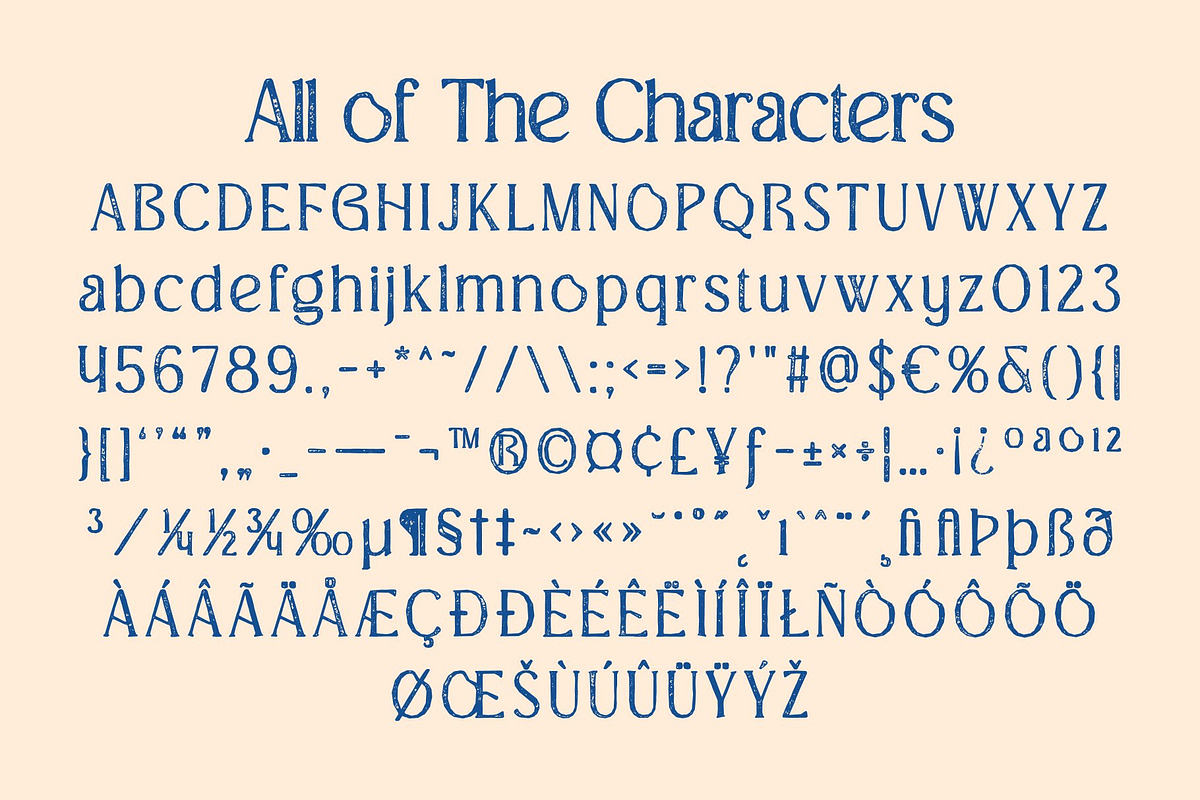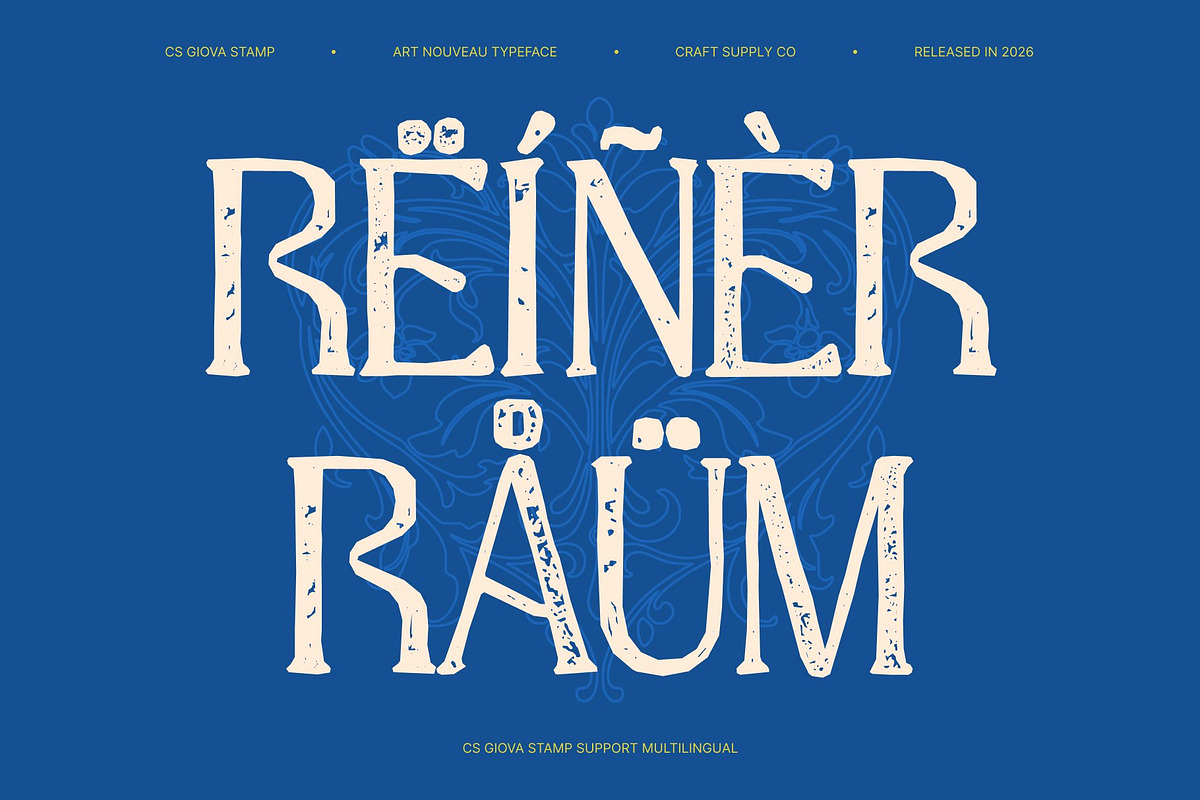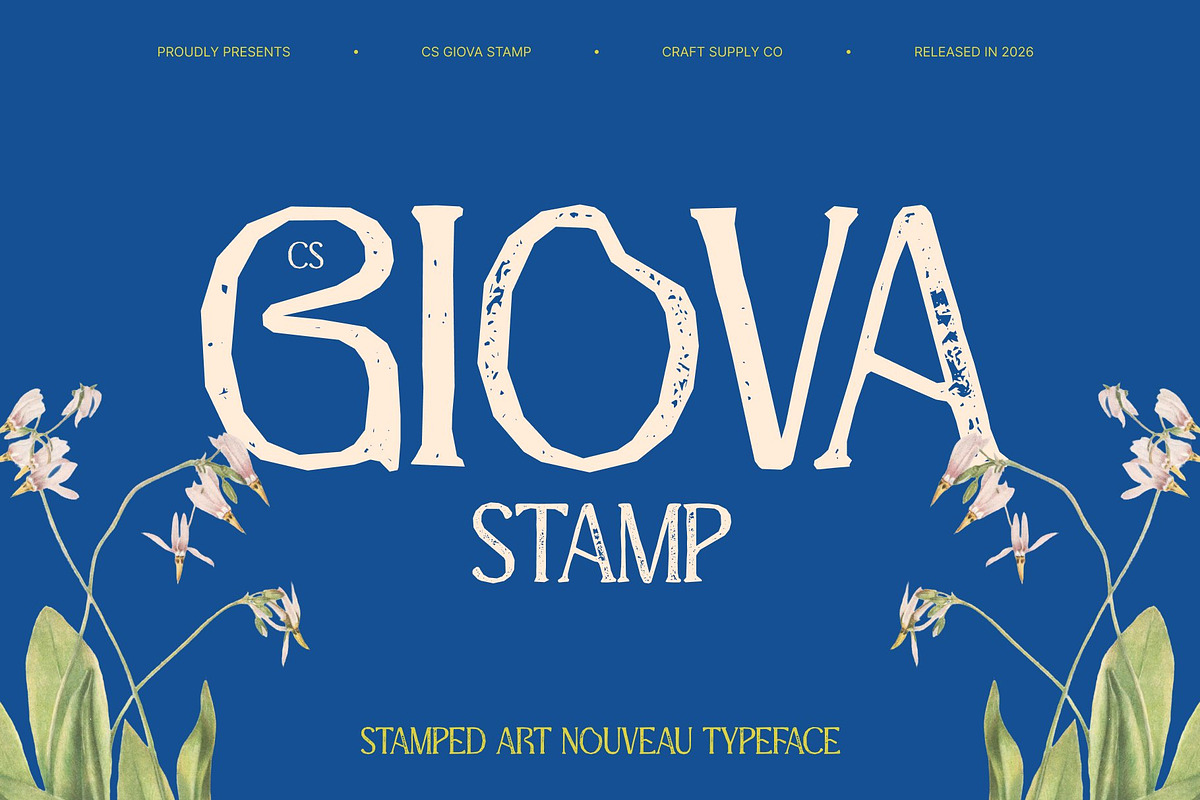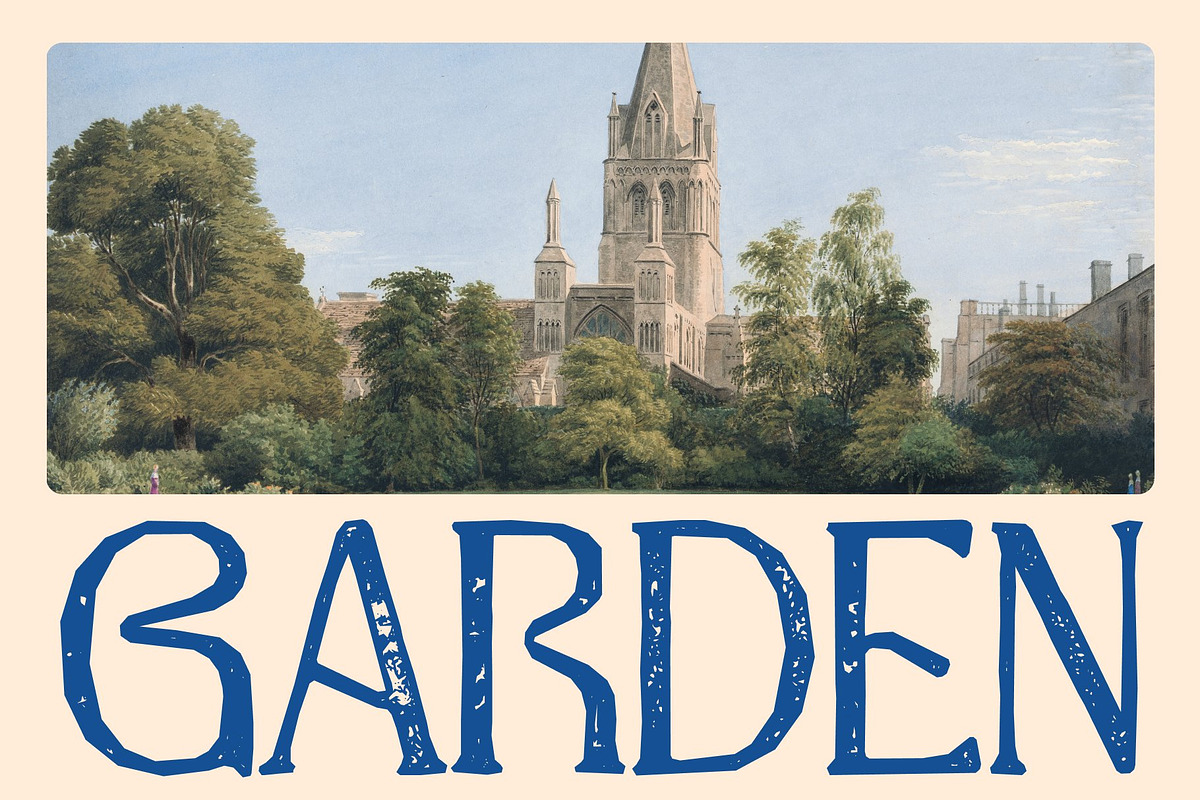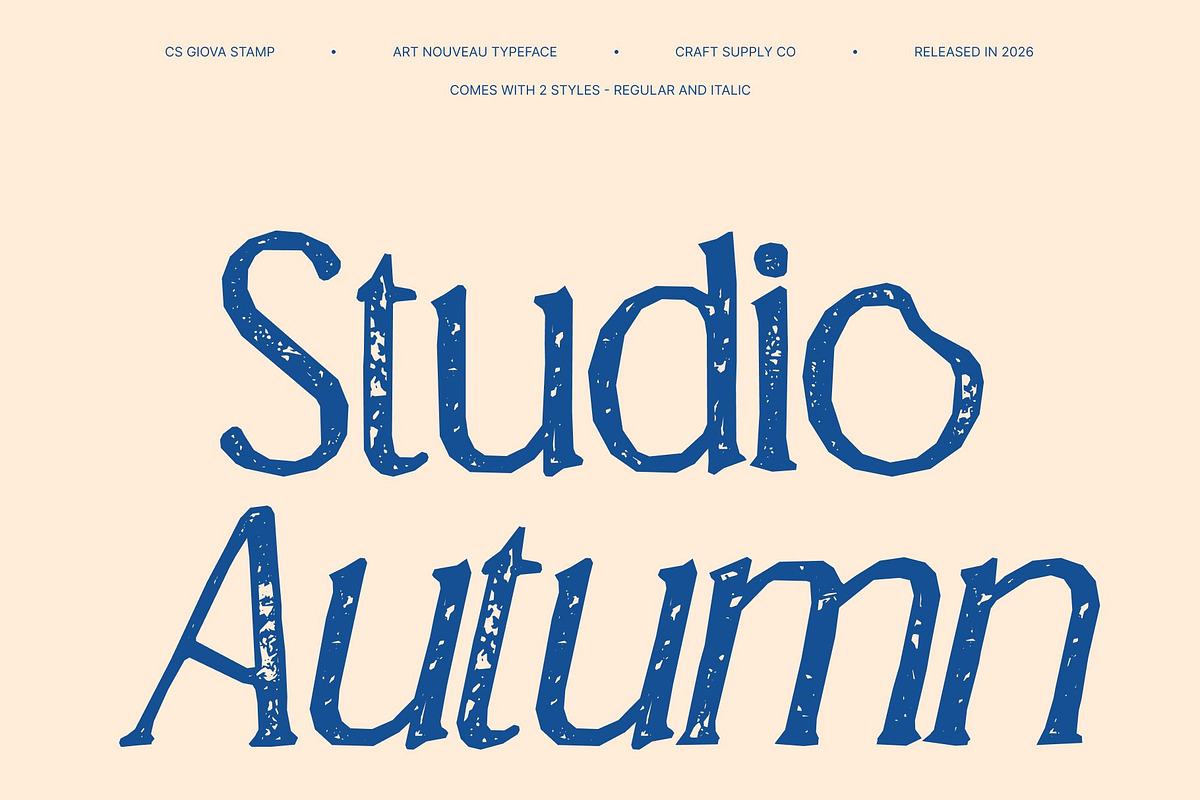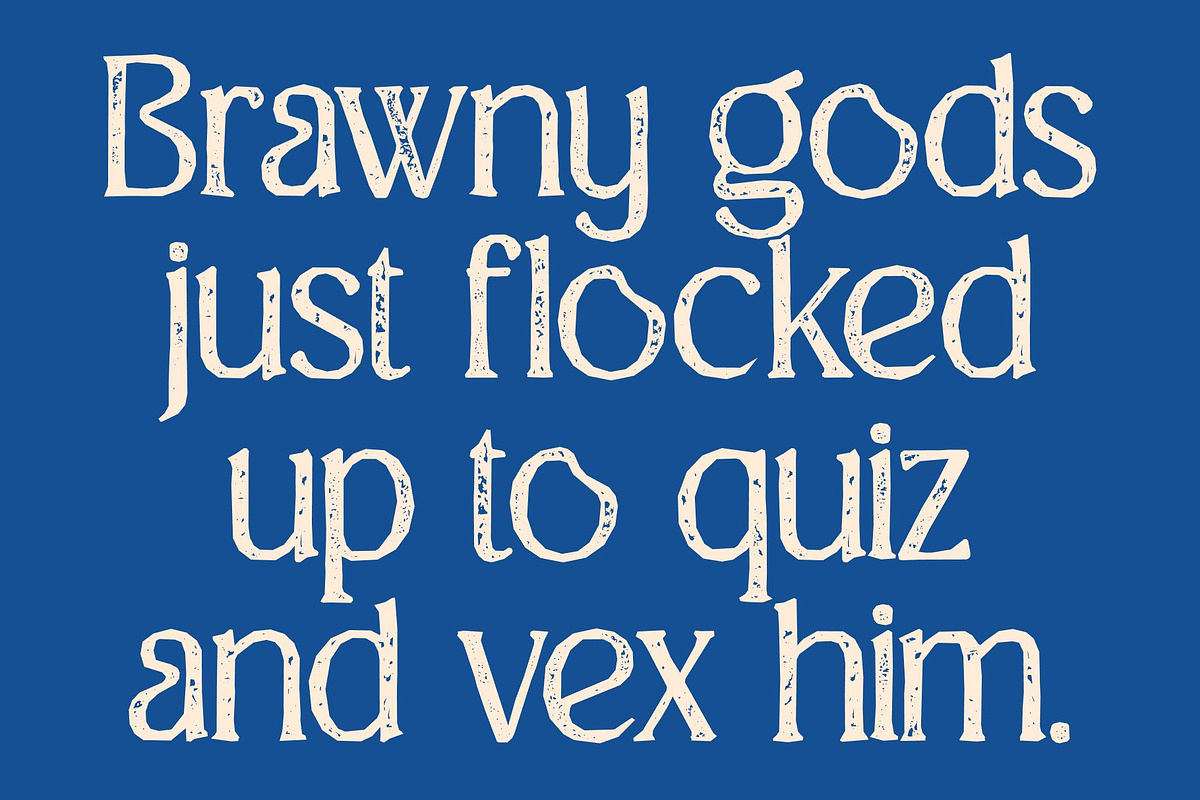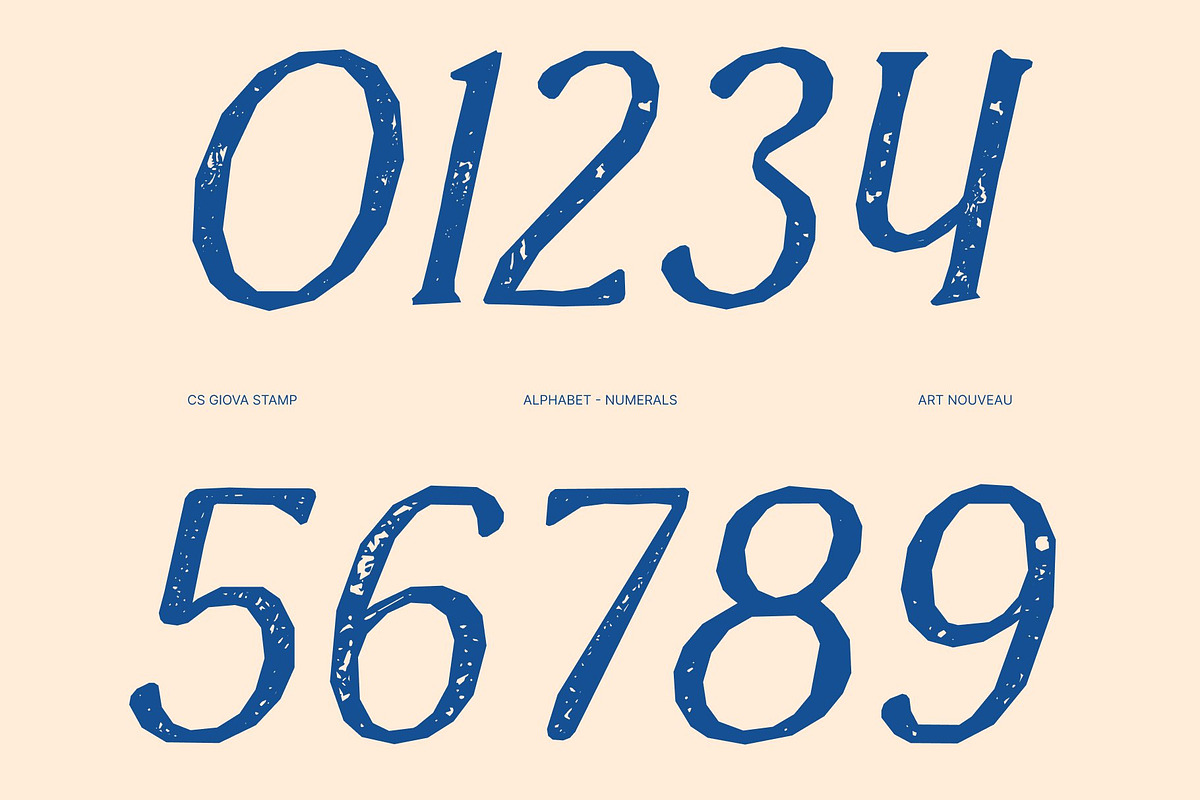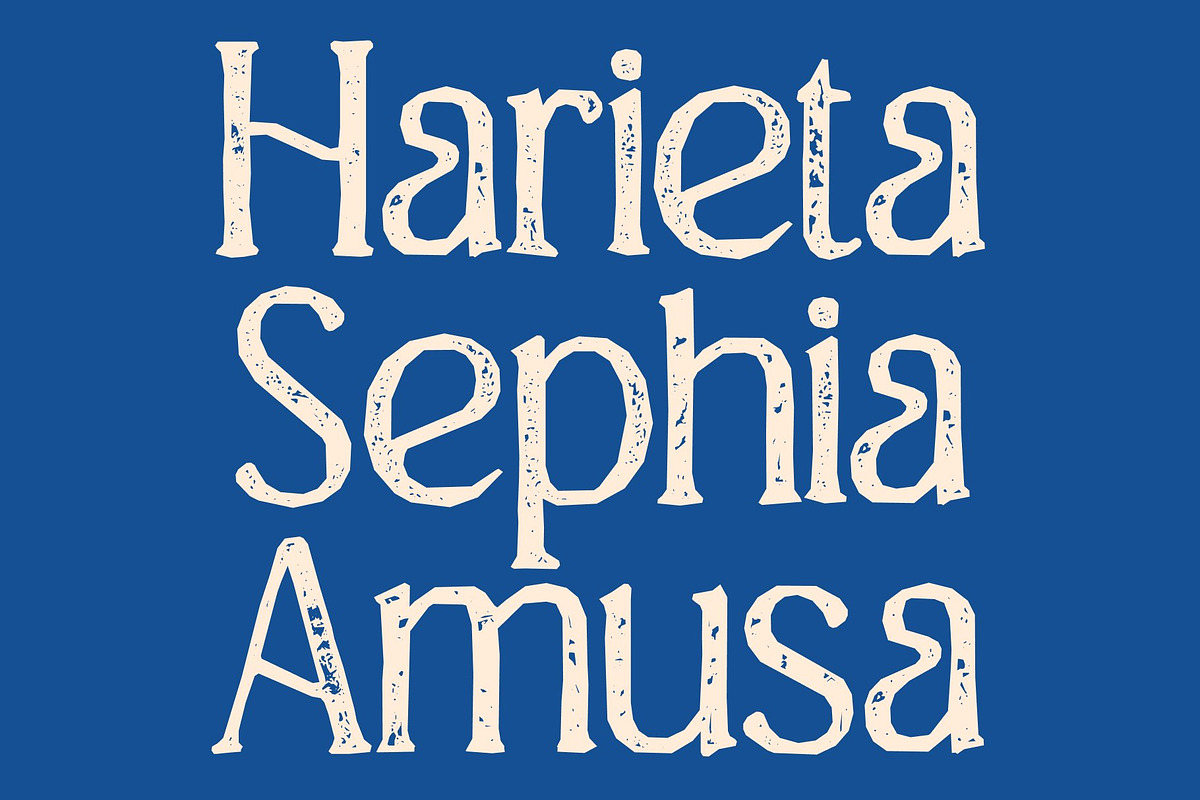
CS Giova Stamp
CS Giova Stamp – Modern Art Nouveau Elegance with Organic Vintage Texture
Modern Art Nouveau Display with Refined Character This is a modern Art Nouveau display font defined by smooth organic lines and graceful movement. Inspired by classic Art Nouveau aesthetics and reimagined with contemporary precision, it now features a subtle stamp texture that adds warmth, depth, and a timeless printed feel.
Organic Forms with Elegant Detail Flowing curves and natural transitions give each letter a harmonious and artistic presence. The stamped finish introduces gentle imperfections, enhancing the handcrafted look and emphasizing the beauty of its organic forms.
Vintage Texture Meets Modern Sensibility By blending decorative elegance with a soft inked texture, the font achieves a balance between historical charm and modern refinement. The result feels luxurious, expressive, and authentically crafted while remaining clean and versatile for contemporary design.
Perfect for Editorials, Luxury Branding, and Fashion This is ideal for editorial layouts, fashion campaigns, packaging, invitations, and premium branding. Its combination of Art Nouveau elegance and vintage print character brings sophisticated artistry and timeless appeal to every headline and visual identity.